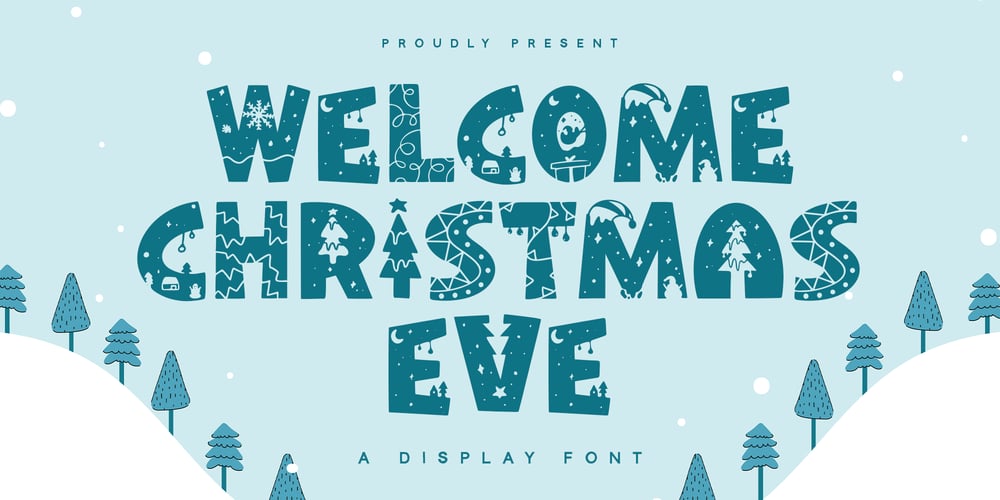
Welcome Christmas Eve Font Family was designed by Nadia Salsabila and published by Alpaprana. Welcome Christmas Eve contains 1 styles and family package options. Welcome Christmas Eve is a display font with unique and modern feels. It will be perfectly used for Branding, Logo Design, Lettering, Logotype, Clothing, Poster, magazine, packaging, posters, shopping bags, t-shirts, book covers, photography, special events and other design project.